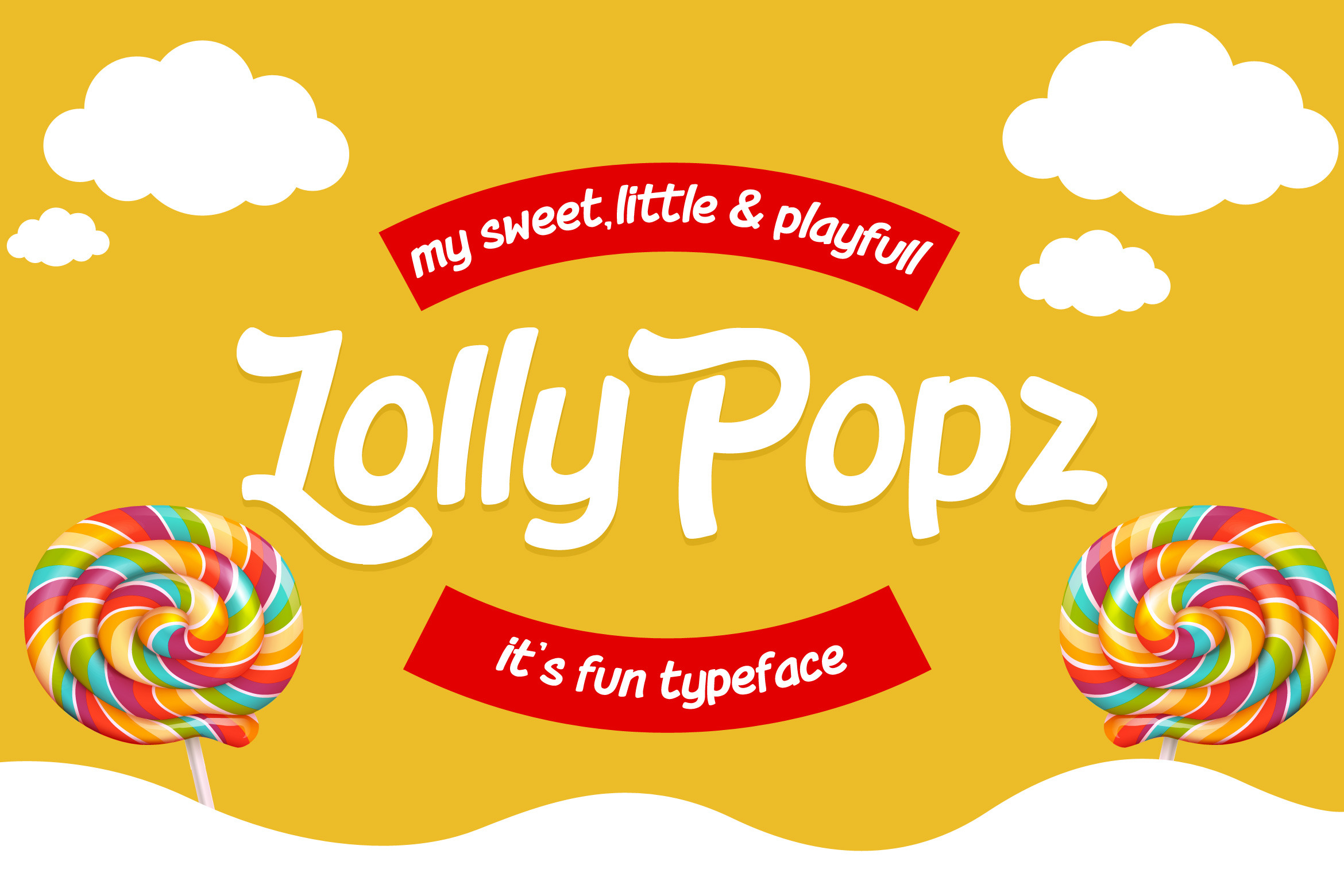
Lolly Popz Typeface
Introducing A new fun, fresh and playful display typeface called Lolly Popz. The inspirations come from lollipop candies that have organic , curvy and bold characteristic.
Lolly Popz have Opentype Features and multilingual accent alongside with the numeric and symbols. Lolly Popz is very Pop, it's perfect for any purpose, logotype, branding, clothing, posters, advertisement, packaging, and many more as you feel fit.